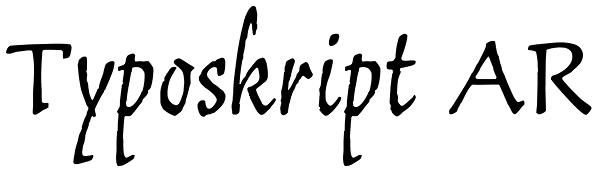
Typoskript AR
Typoskript AR is based on a metal type which was produced in 1968 by VEB Typoart, Dresden, from a design of the German calligrapher and lettering artist Hildegard Korger. It bears all the qualities of the artist’s inimitable style which will be...